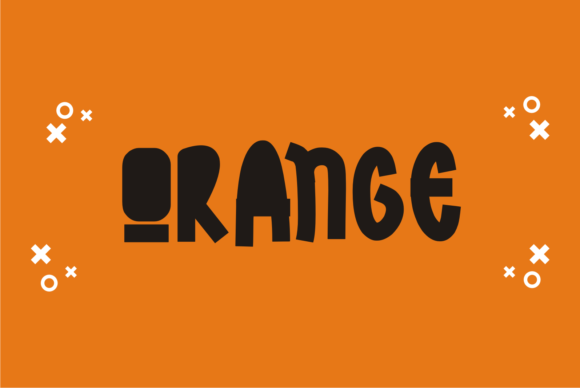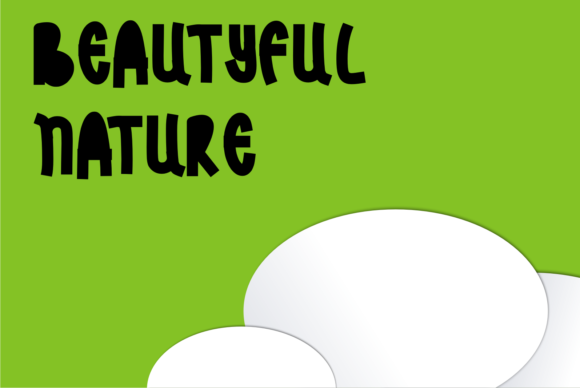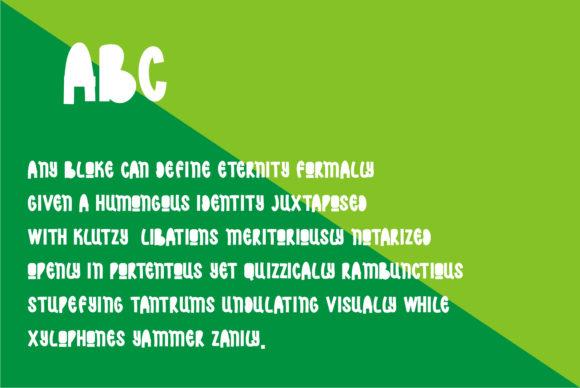
Introduction to Nolep Bold Font
Have you ever stared at a blank canvas, searching for that perfect font to elevate your design? The moment of clarity hits, and you finally find it – a font that speaks to your creative soul and makes your project shine. For designers, discovering a high-quality font can be a game-changer. That’s where the Nolep Bold Font comes in – a cool and trendy-looking display font that’s sure to make your designs stand out.
Whether you’re working on a logo, badge, or poster, the Nolep Bold Font is a valuable addition to your design resource arsenal. Its versatility and unique style make it perfect for creative projects that require a touch of sophistication and flair. Plus, with its transparent background option, you can easily customize it to fit your design needs.
Key Features of Nolep Bold Font
- High-quality design resource ideal for creative projects, offering a professional and modern look.
- Nolep Bold Font features a transparent background, allowing for easy layering and customization in your design.
- Available in a single weight, Nolep Bold Font is perfect for adding a touch of sophistication and elegance to your creative project.
- Perfect for use in logos, headings, and titles, Nolep Bold Font adds a unique touch to any design project.
Honest Review: Nolep Bold Font
I recently stumbled upon the Nolep Bold Font and was excited to give it a try for my latest creative project. The font is a high-quality design resource that’s perfect for any design enthusiast looking to add a touch of modernity to their work.
One of the things that works well with the Nolep Bold Font is its versatility. It’s available for free download, making it an excellent choice for designers who are on a budget or just starting out. The font also features a transparent background, which allows for seamless integration with any design element.
Here are some of the key features that make the Nolep Bold Font stand out:
- Transparent background for seamless integration
- Available in a range of sizes and styles to suit any design need
While the Nolep Bold Font is a great addition to any design library, there are a few limitations to consider: ⚠️ it may not be suitable for very large-scale projects, and the font’s complexity may make it difficult to edit.
Overall, I’m impressed with the Nolep Bold Font and would highly recommend it to anyone looking for a high-quality design resource for their creative project. ✨ It’s a great choice for designers who want to add a touch of modernity to their work without breaking the bank.
Tips for Getting the Most Out of Nolep Bold Font
Use the Nolep Bold Font on a transparent background to create a striking design effect. Experiment with different font sizes and styles to add emphasis to your text. This high-quality font is a great design resource for any creative project.
The Nolep Bold Font is ideal for headings, titles, and any text that requires a bold and attention-grabbing style. You can also use it to create a consistent design theme throughout your project. With a free download available, you can incorporate this font into your next creative project with ease.